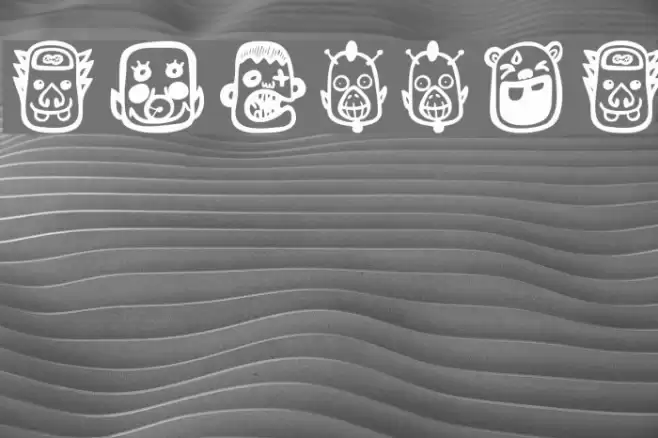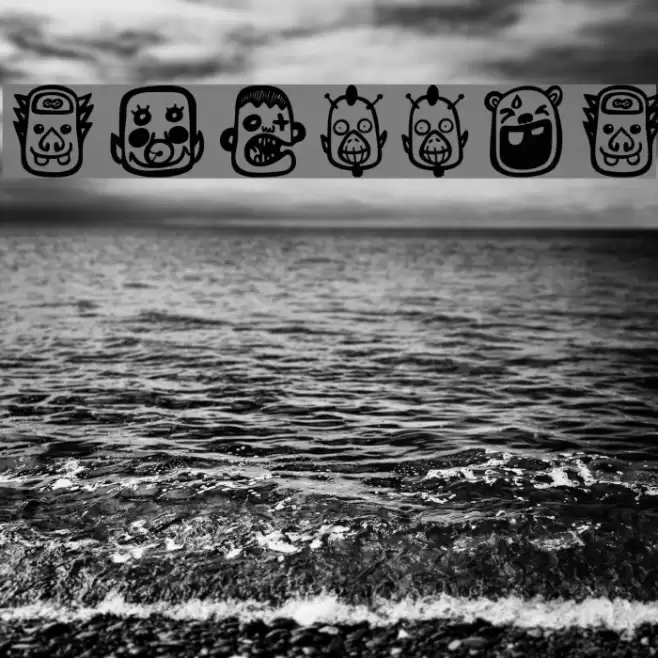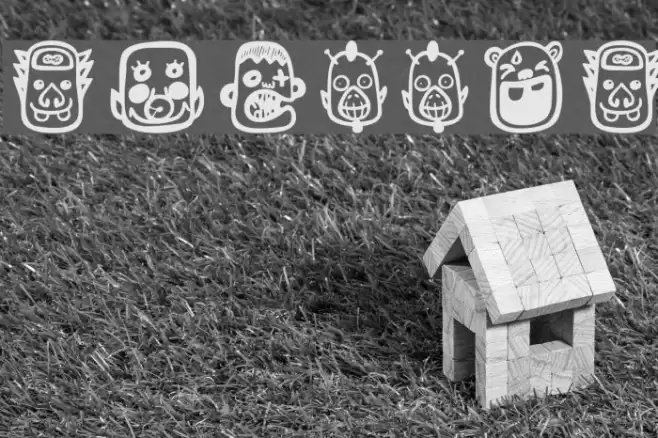
A playful, decorative typeface where each character is represented by a unique cartoonish face or creature, featuring bold outlines and whimsical details. The glyphs are highly stylized and not traditional letterforms, making them more suitable for illustrative or novelty purposes.
Cartoonish, decorative font with each character as a unique illustrated face from Uncategorized fonts.
- Proposed Projects: Children’s books, party invitations, posters, comics, playful branding, stickers.
- Overall Style: Decorative, Playful, Whimsical
- Use Case: Logos, Posters, Headlines, Illustrative projects